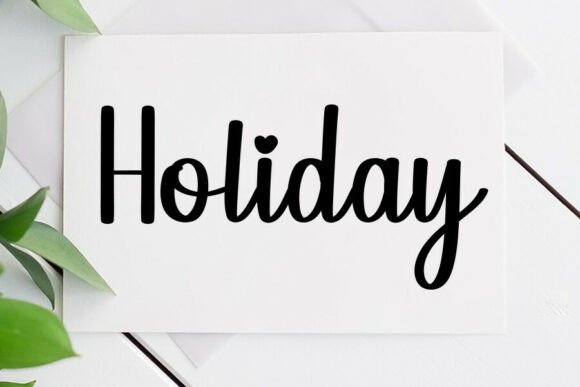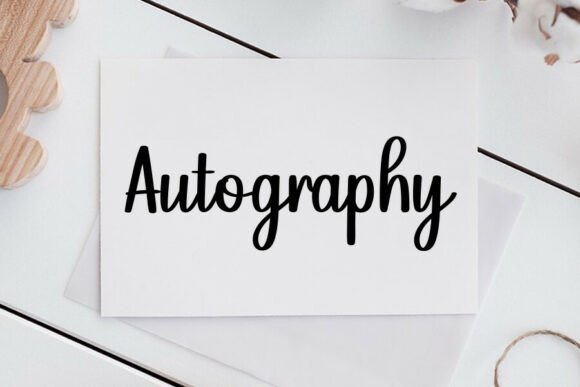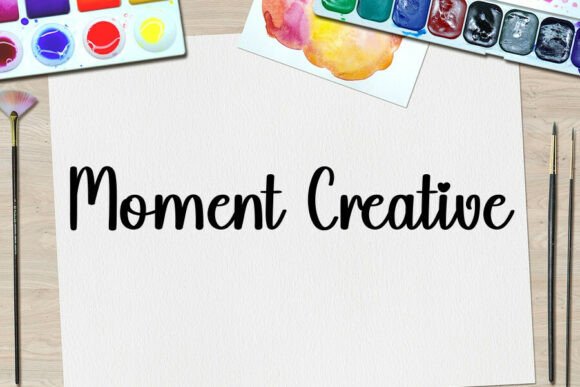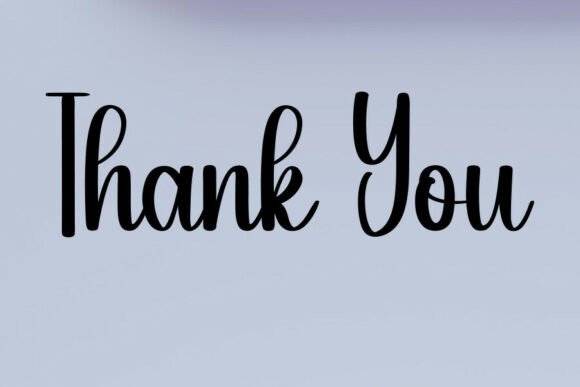
The Catch: Discovering the Charm of Fishing Font
I’ll never forget the design project that led me to discover Fishing Font. I was working on a branding campaign for a new outdoor gear company, and I needed a font that would capture the essence of adventure and nature. After hours of scrolling through font libraries and trying out different combinations, I stumbled upon Fishing Font. Its unique, handwritten charm instantly resonated with the project’s theme, and I knew I had found the perfect fit.
An Honest Review: What I Love (and What to Watch Out For)
Fishing Font has quickly become one of my go-to fonts for creative projects. Here’s what I love about it:
- ✨ Unique and beautiful touch: Every letter has a distinct character that adds a personal touch to any design.
- ✅ Versatile: Perfect for logos, branding, quotes, and more.
- 🎨 Highly legible: Despite its handwritten nature, Fishing Font is surprisingly easy to read.
Of course, no font is perfect. Here are a few quirks to keep in mind:
- 🤔 Limited formal applications: Fishing Font’s casual, handwritten style might not be the best fit for formal or corporate designs.
- ⚠️ Glyph limitations: While Fishing Font has a range of OpenType features, it might not have every glyph or stylistic alternate you need.
The Story Behind Fishing Font
Fishing Font was designed with the intention of capturing the carefree spirit of a summer day by the lake. Its creator drew inspiration from vintage fishing signs, handwritten letters, and the natural world. The result is a font that’s both nostalgic and timeless.
| Font Name | Fishing Font |
| Author | cans studio |
| What makes Fishing Font unique? | Fishing Font’s unique, handwritten style and beautiful touch set it apart from other fonts. |
| Is Fishing Font suitable for formal designs? | While Fishing Font is highly versatile, its casual style might not be the best fit for formal or corporate designs. |